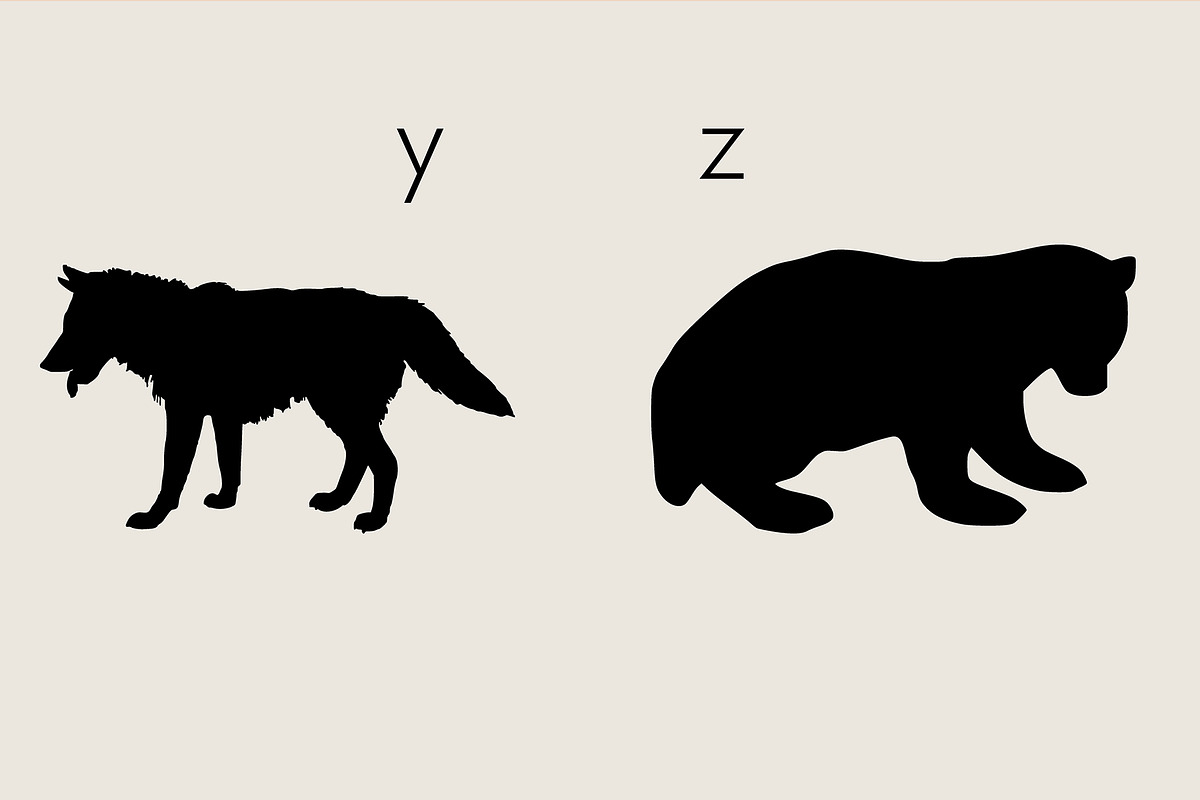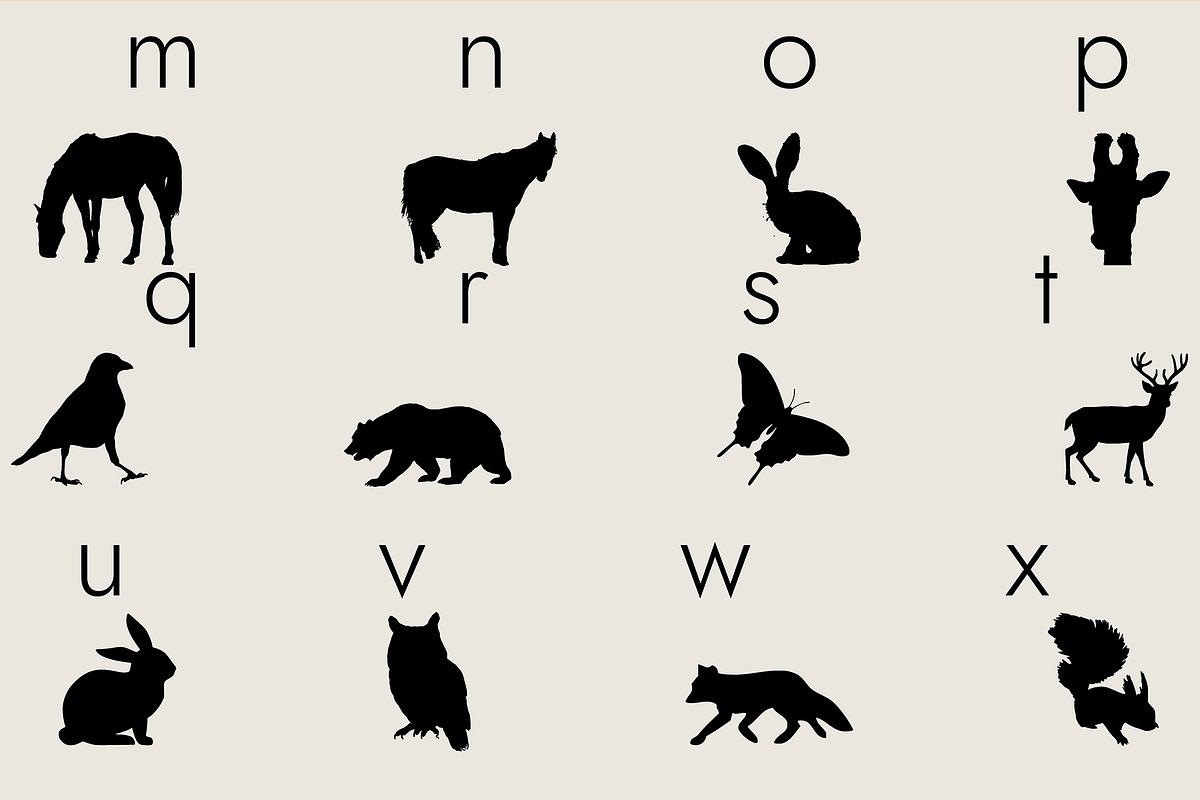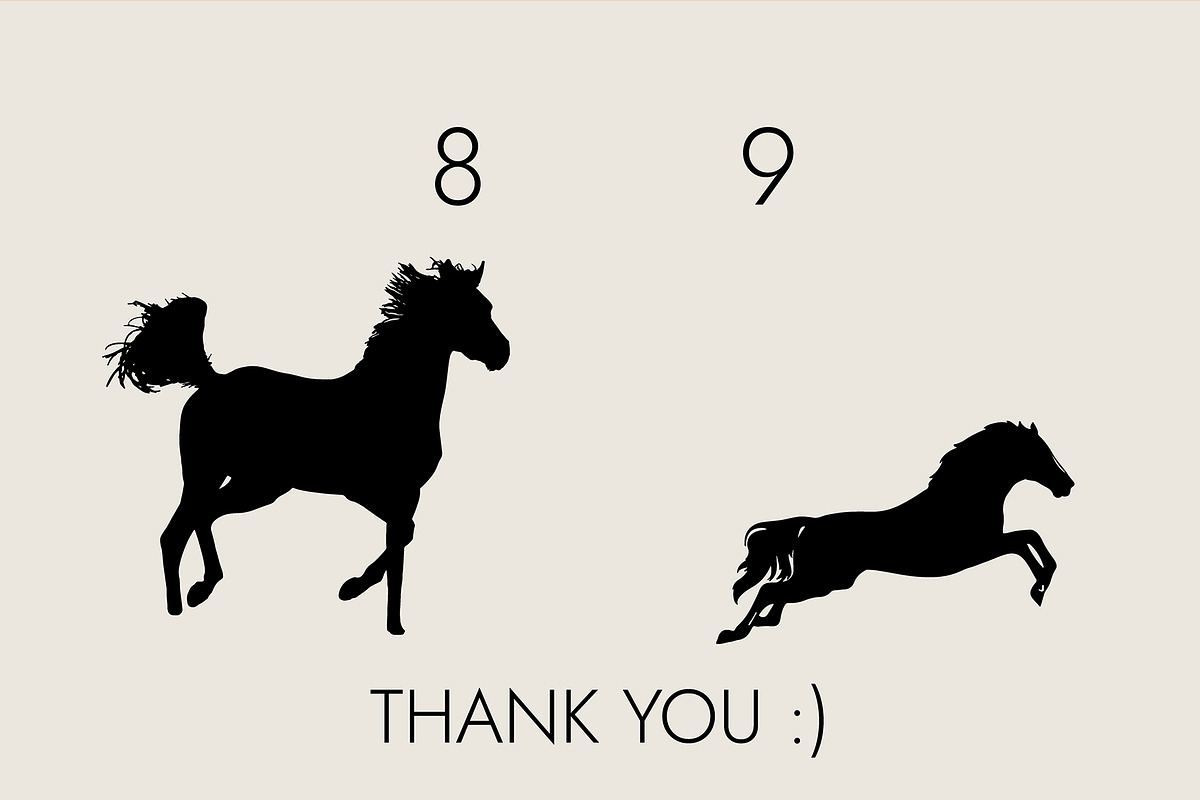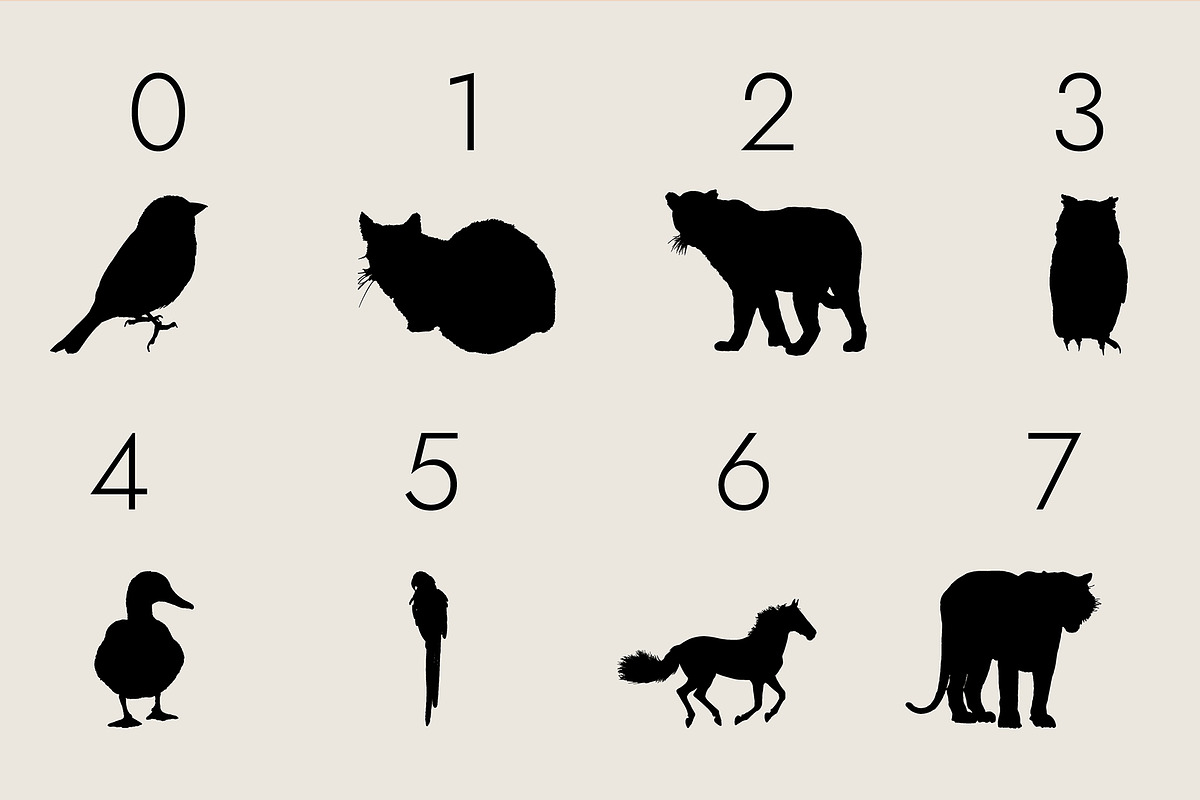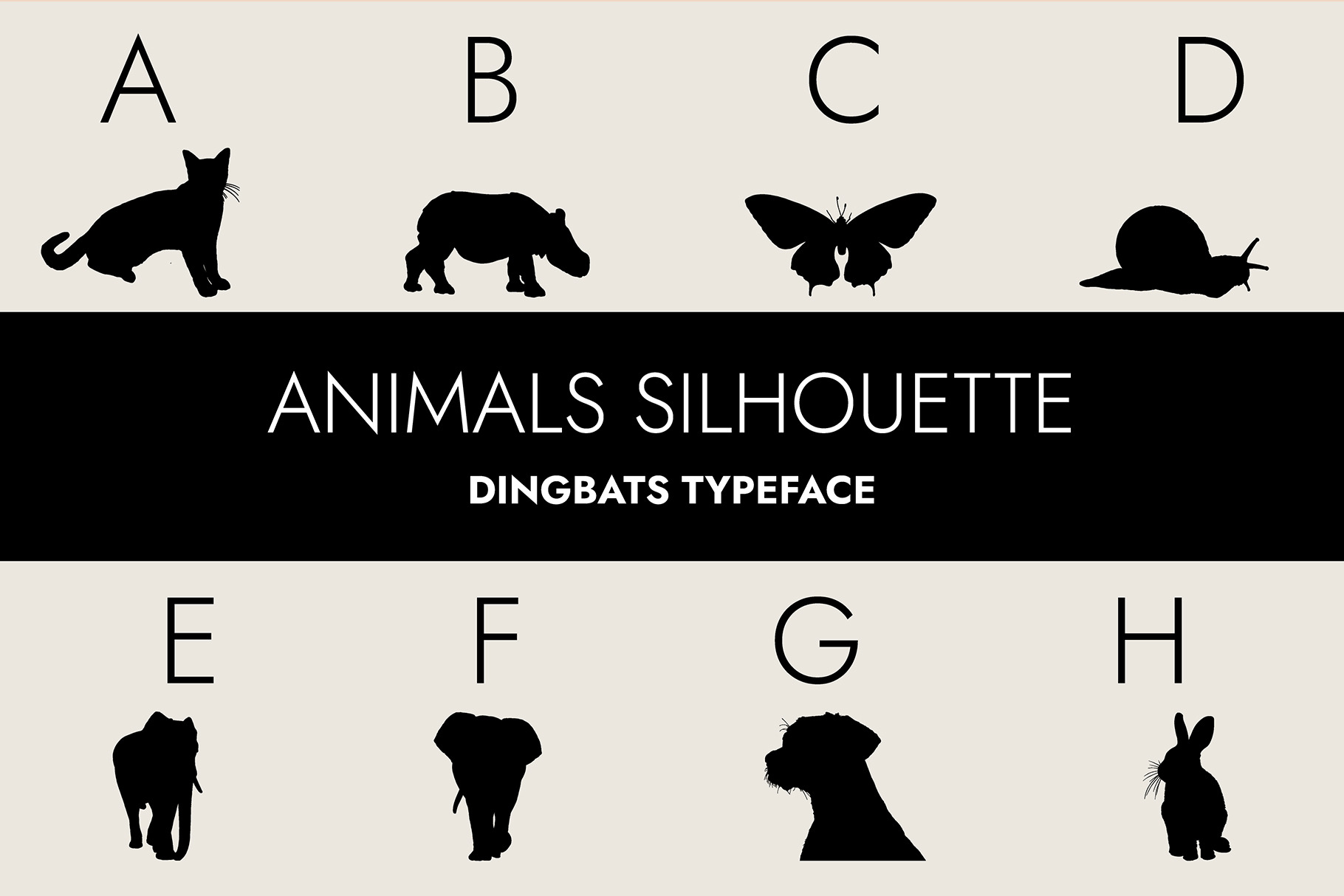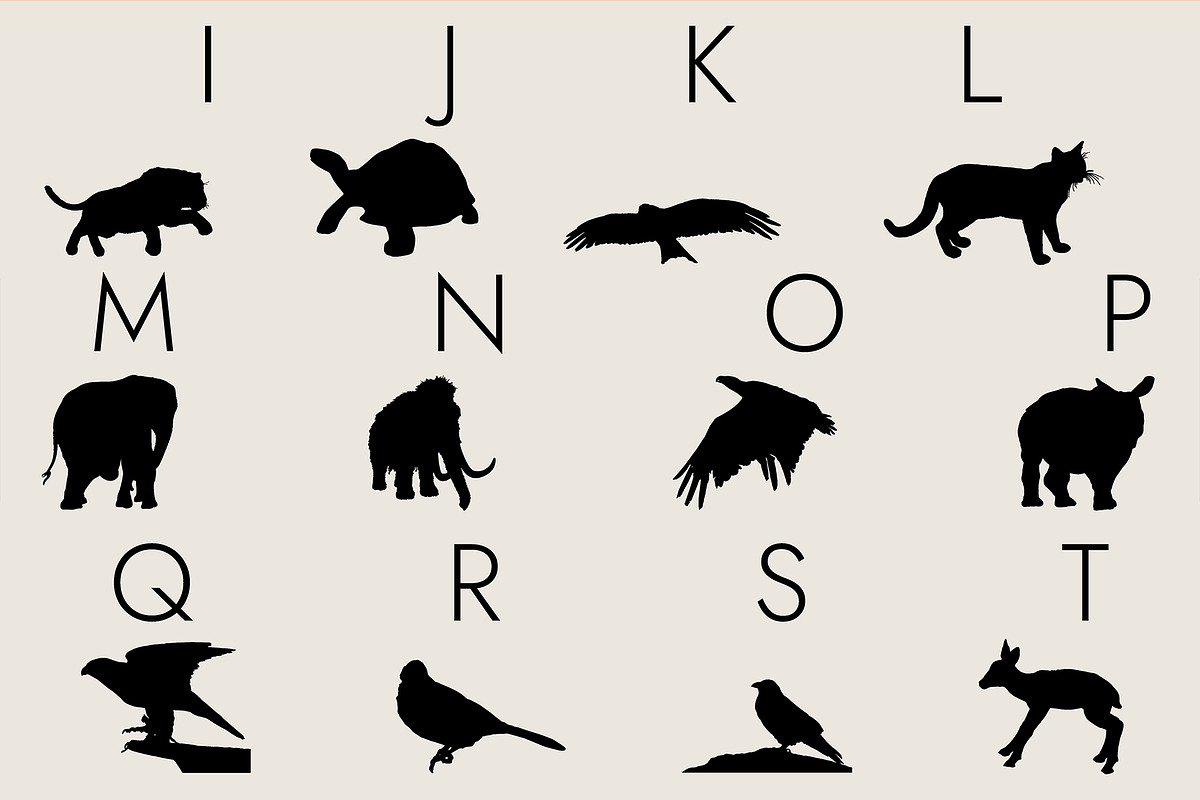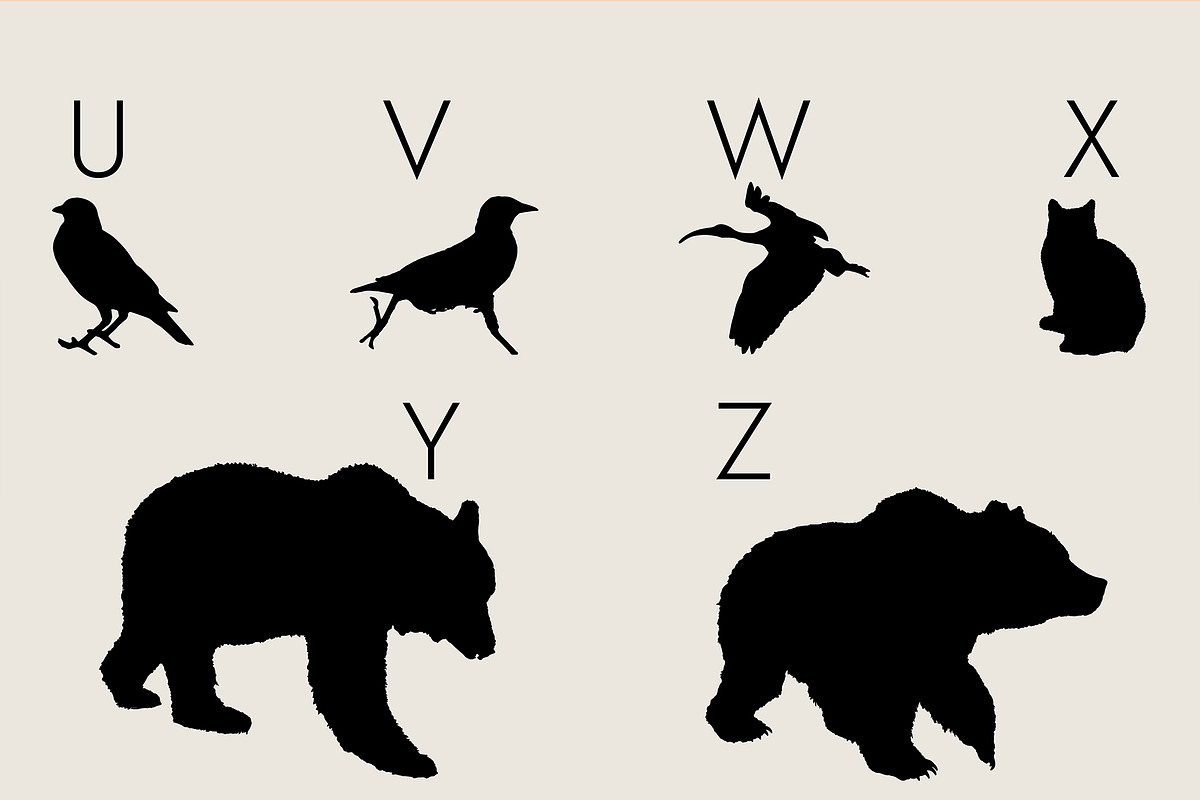
Animals Silhouette Dingbats Font
Animals Silhouette is a useful and interesting dingbats font. Whether you’re using it for crafts, digital design, presentations, or making greeting cards, this font will elevate each of your creations.